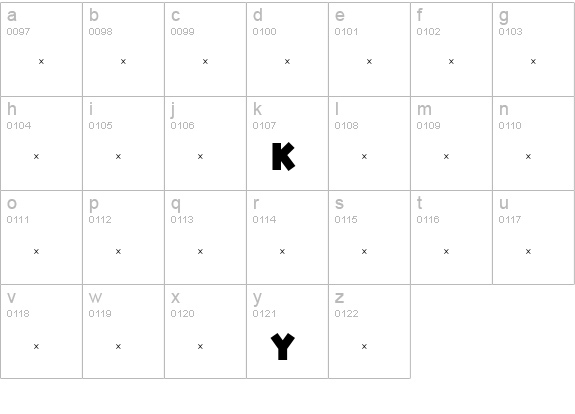
PhosphateSolid Font Details
PhosphateSolid is a stunning font that exudes elegance and sophistication. Its unique and intricate design captures attention and adds a touch of class to any project. The meticulously detailed letterforms of PhosphateSolid create a sense of depth and dimension, making it truly remarkable. This font is perfect for a wide range of design applications, including logos, invitations, headlines, and more. Its versatility allows it to be used in both digital and print media, ensuring that your message is delivered with style and impact. One of the best features of PhosphateSolid is that it is freely available to download at FontsMarket.com. This means that you can access this incredible font without any cost or hassle. Whether you are a professional designer or a hobbyist, PhosphateSolid offers you the opportunity to elevate your creations without breaking the bank. With its sleek and modern aesthetic, PhosphateSolid is sure to impress. Its clean lines and balanced proportions make it easy to read, ensuring that your message is communicated effectively. Whether you are designing a poster, a website, or a brochure, PhosphateSolid will make your text pop and stand out from the crowd. In conclusion, PhosphateSolid is a must-have font for anyone looking to add a touch of elegance and sophistication to their designs. Its stunning design and freely available download make it a valuable asset for both professional and personal projects. Don't miss out on the opportunity to enhance your creations with this incredible font. Download PhosphateSolid for free at FontsMarket.com today!